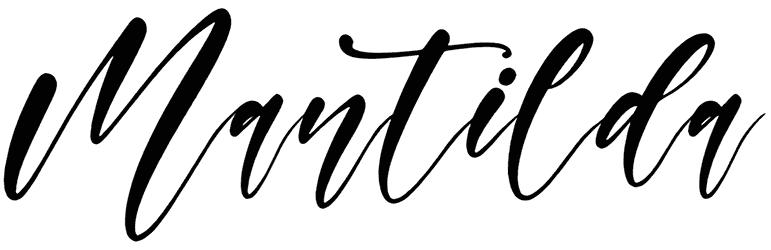
Mantilda Font
Look at the beautiful, elegant Mantilda, a calligraphy font with a modern style that comes with a full set of characters and makes your work truly stand out. It has a charming, complex, and handcrafted texture that appears stunning in wedding invitations, quotes, branding, Valentine’s designs, and greeting cards. Although this font looks complicated, it is completely readable.